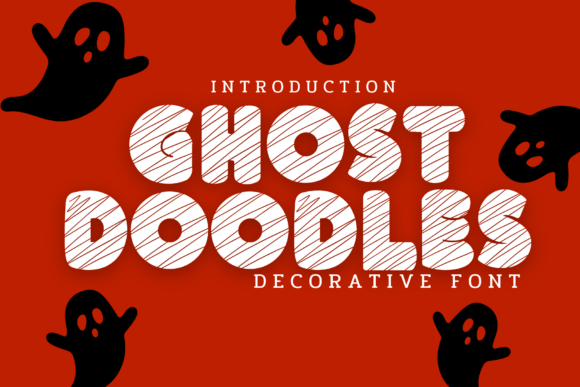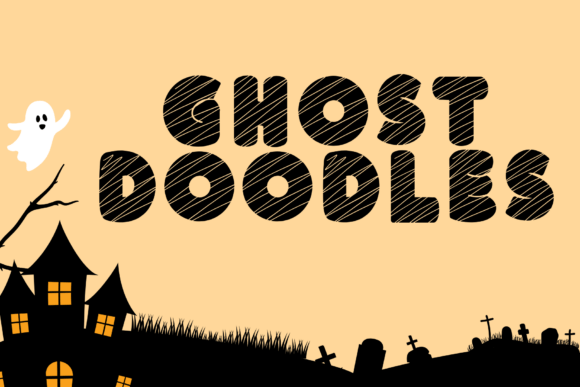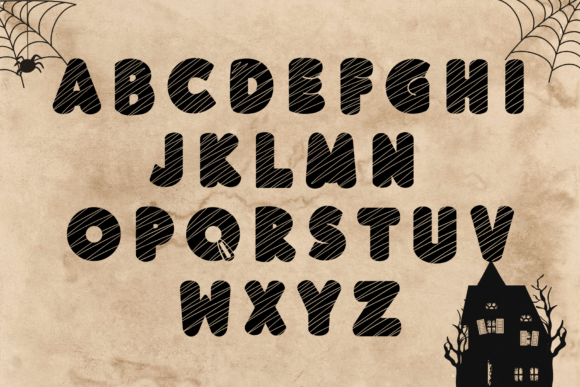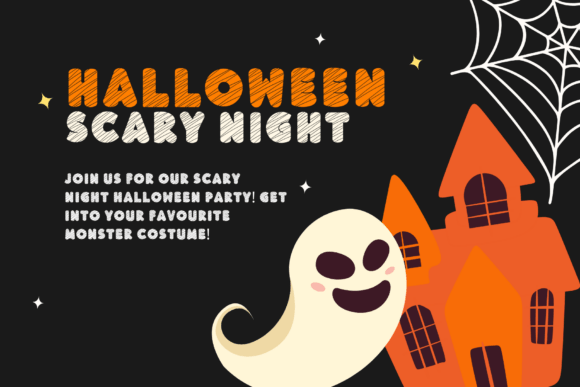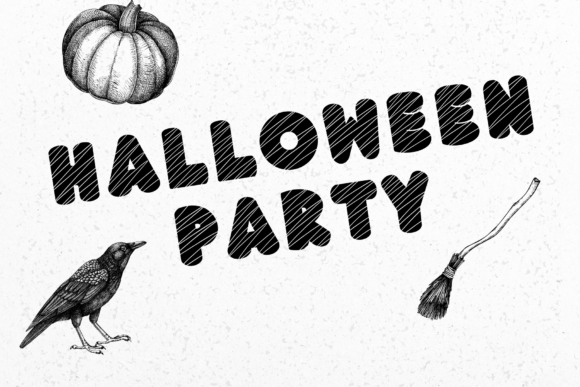
Bring Your Creative Ideas to Life with the Ghost Doodles Font
You know that moment when the perfect font suddenly pops into your head, and you can’t wait to see your design come to life? It’s like a spark of creativity that ignites a whole new world of possibilities. For designers, finding the right font can be the key to unlocking a truly unique and captivating visual identity.
That’s where the Ghost Doodles Font comes in – a fun, decorative font that’s perfect for adding a touch of whimsy and personality to your designs. Whether you’re working on a project for a client or simply experimenting with your own creative ideas, this font is sure to inspire. With its playful, handwritten feel, Ghost Doodles Font is a valuable tool for designers looking to add some visual flair to their work.
Ghost Doodles Font Key Features
- Unique Hand-Drawn Style: The Ghost Doodles Font features a distinctive, hand-drawn aesthetic with irregular lines and subtle imperfections, giving it a whimsical and playful feel.
Ghost Doodles Font Review
When I first laid eyes on the Ghost Doodles Font, I was immediately drawn in by its quirky, whimsical vibe. ✨ The font’s unique blend of modern and hand-drawn elements had me curious to see how it would perform in various design scenarios.
Here are a few things that work well with the Ghost Doodles Font:
- ✨ The font’s versatility – it can be used for everything from branding to editorial content
- ✨ The high level of customization available, including a wide range of font sizes, colors, and styles
- ✨ The font’s ability to add a touch of personality to even the most mundane designs
However, there are a few limitations to be aware of:
- ⚠️ The font can be a bit too playful for some designs, potentially detracting from the overall message
- ⚠️ The font’s uniqueness can also make it difficult to pair with other fonts, requiring a bit of trial and error to find the perfect match
Overall, I would say that the Ghost Doodles Font is a solid addition to any designer’s toolkit. While it may not be suitable for every project, it’s definitely worth considering for designs that need a bit of personality and whimsy.
Tips for Getting the Most Out of Ghost Doodles Font
Experiment with different font sizes and colors to create unique and eye-catching designs.
Use the Ghost Doodles font to add a playful touch to your branding and marketing materials.
Combine the Ghost Doodles font with other creative elements, such as illustrations and graphics, to create visually appealing designs.
Alternatives to Ghost Doodles Font
Great Vibes is a modern, handwritten font suitable for creating a friendly and approachable atmosphere. It’s ideal for use in advertising, social media, and branding materials. Compared to Ghost Doodles Font, Great Vibes has a more consistent and uniform feel, making it a great choice for long text passages.
Pacifico is a beautiful, cursive font that evokes a sense of relaxation and calmness. It’s perfect for use in packaging, logos, and wedding invitations. Compared to Ghost Doodles Font, Pacifico has a more elegant and refined feel, making it a great choice for high-end branding and design projects.
Carolyna Pro is a modern, script font that’s perfect for creating a sense of luxury and sophistication. It’s ideal for use in high-end branding, advertising, and editorial design. Compared to Ghost Doodles Font, Carolyna Pro has a more polished and refined feel, making it a great choice for projects that require a high level of elegance and sophistication.